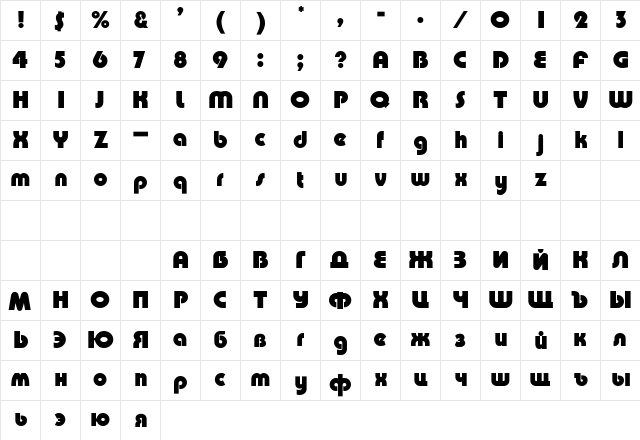
Pump Rus Regular
Design Context for Pump Rus Typeface
Pump Rus takes a measured approach to typography — its balanced proportions and neutral character make it a reliable workhorse for both digital and print work.